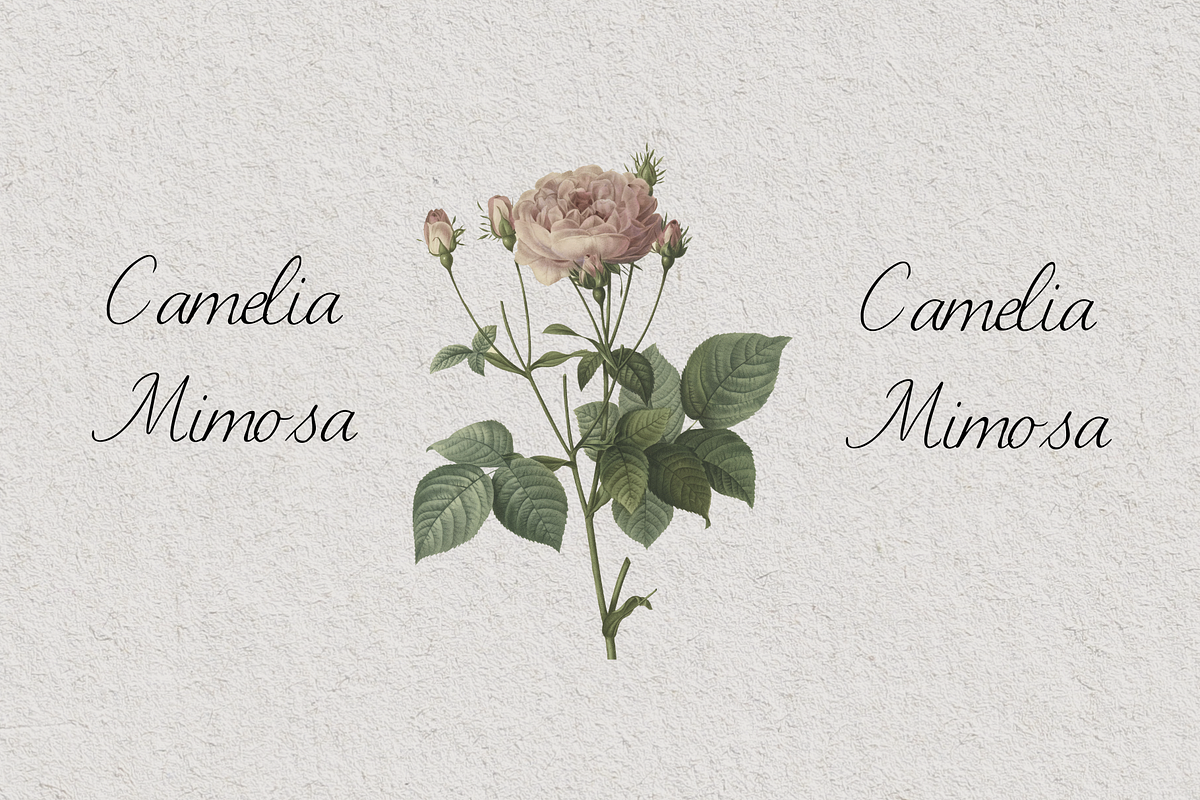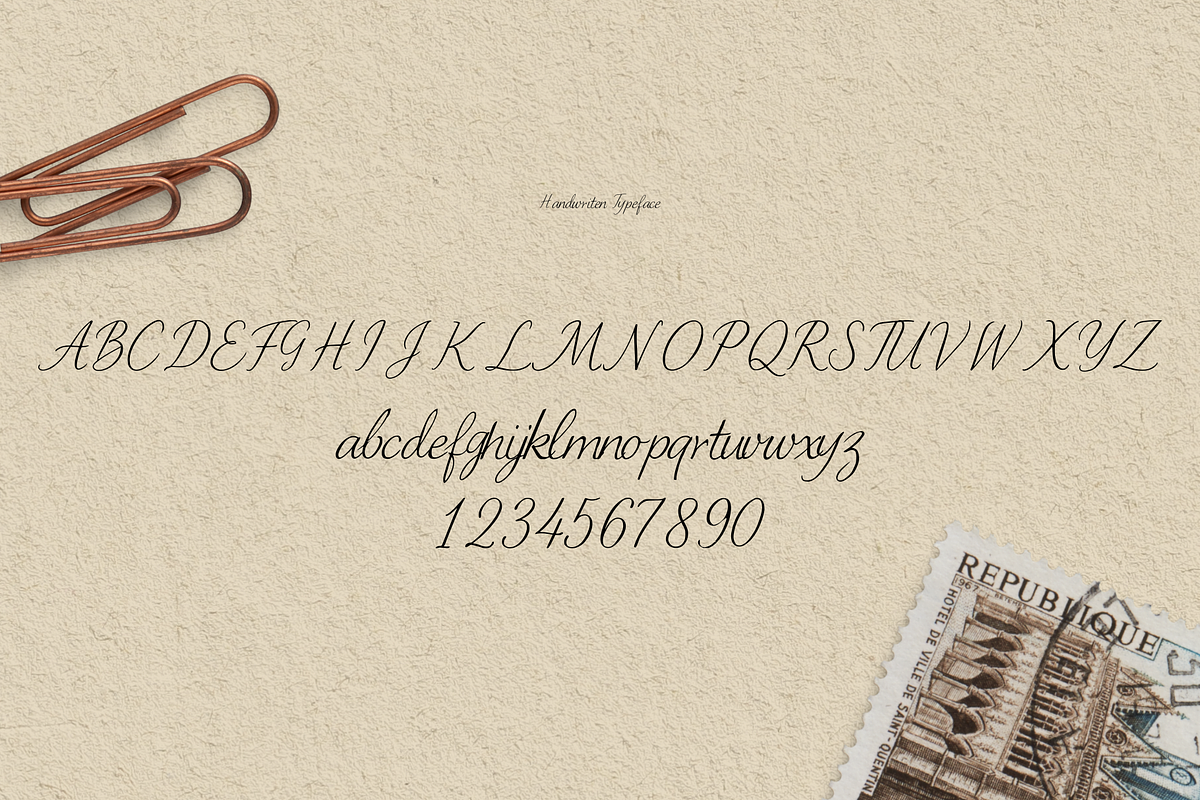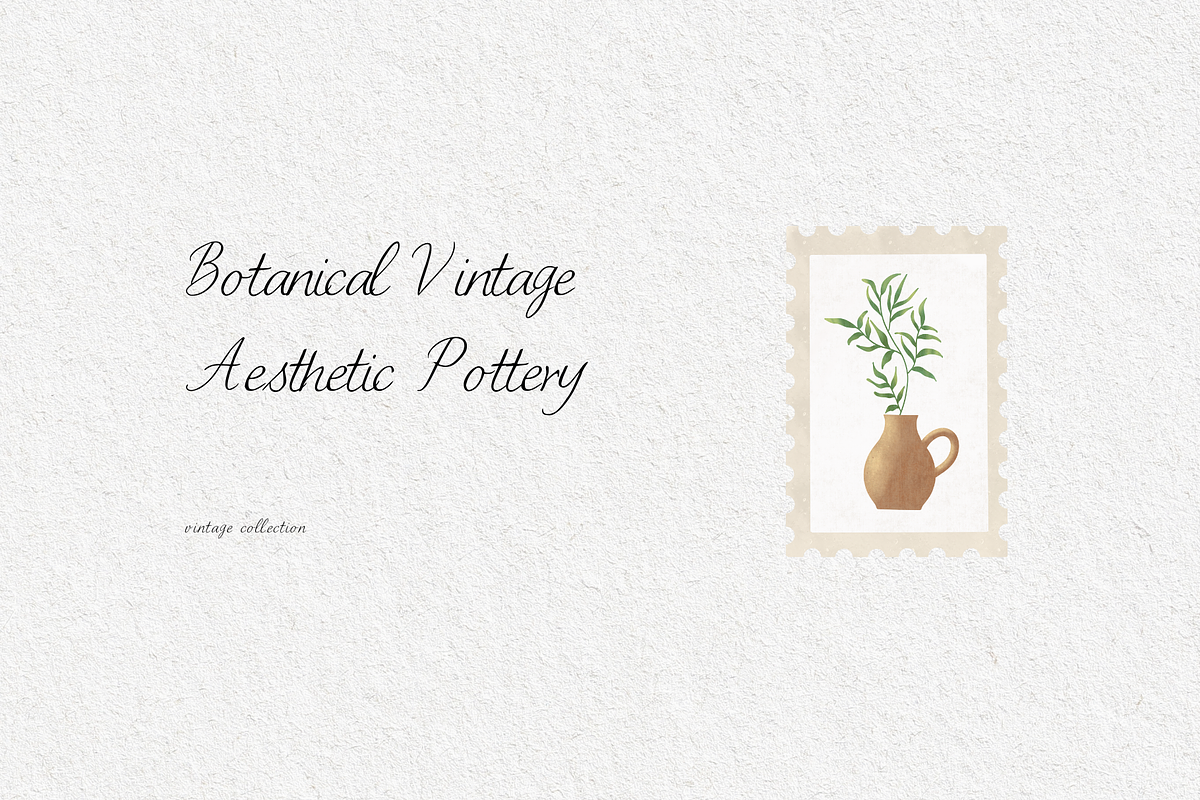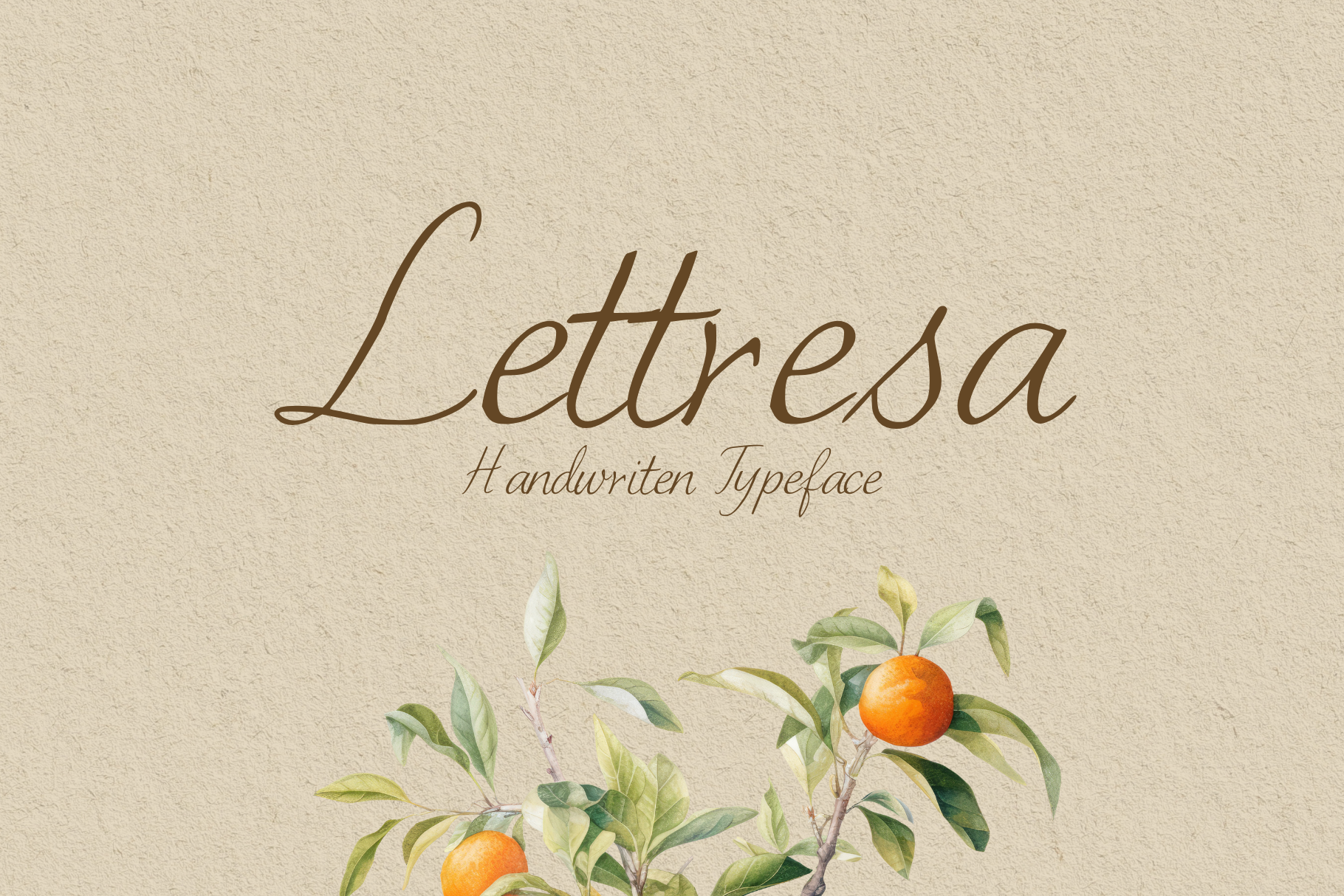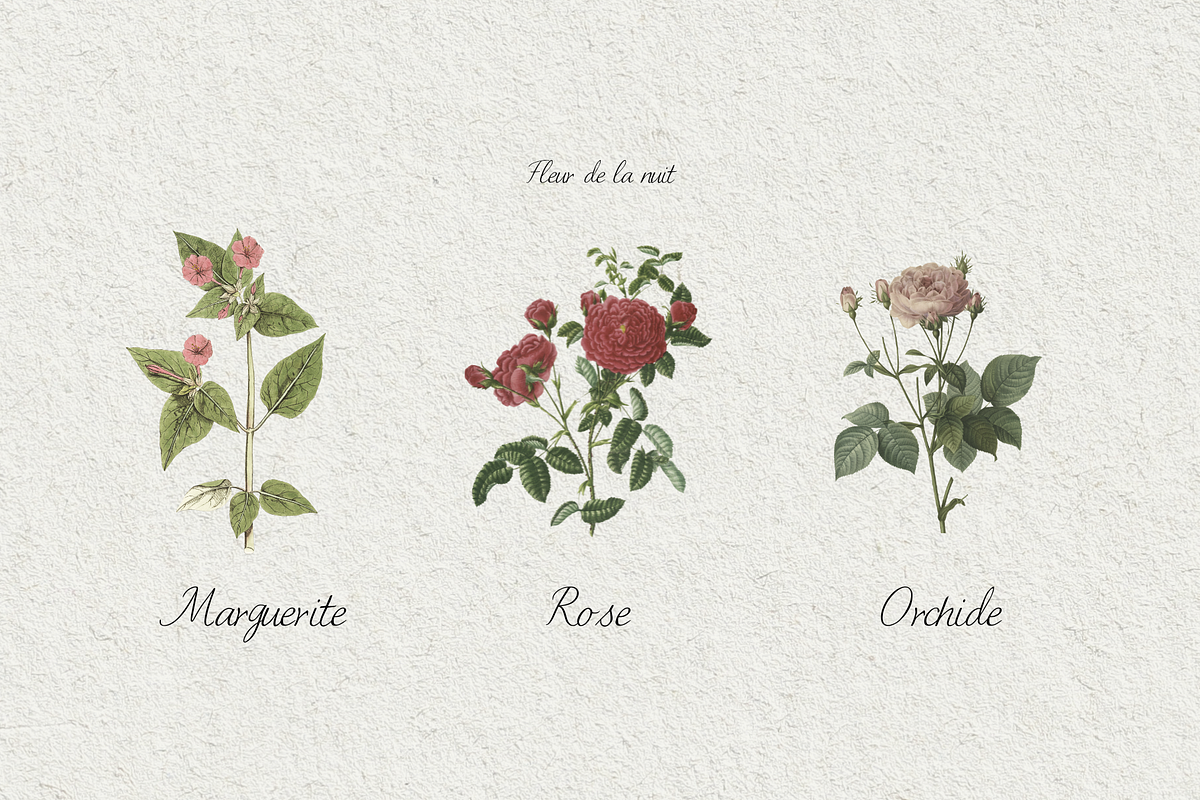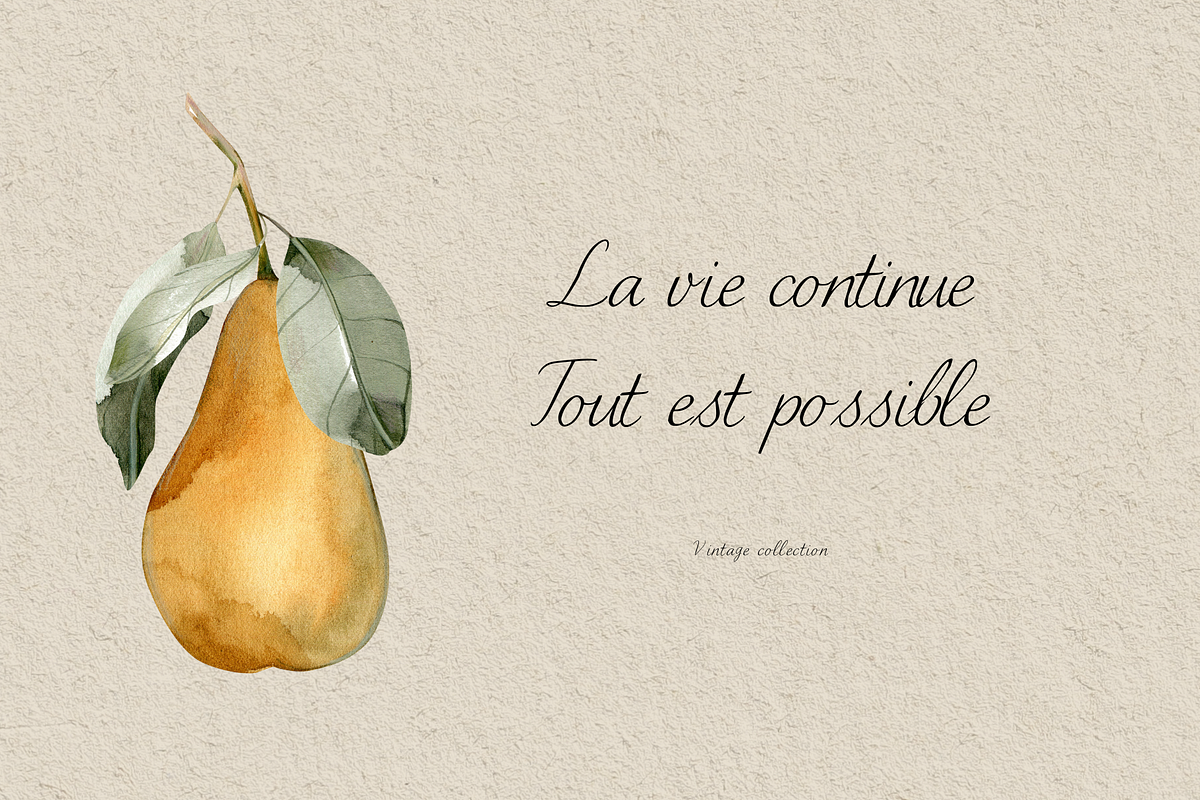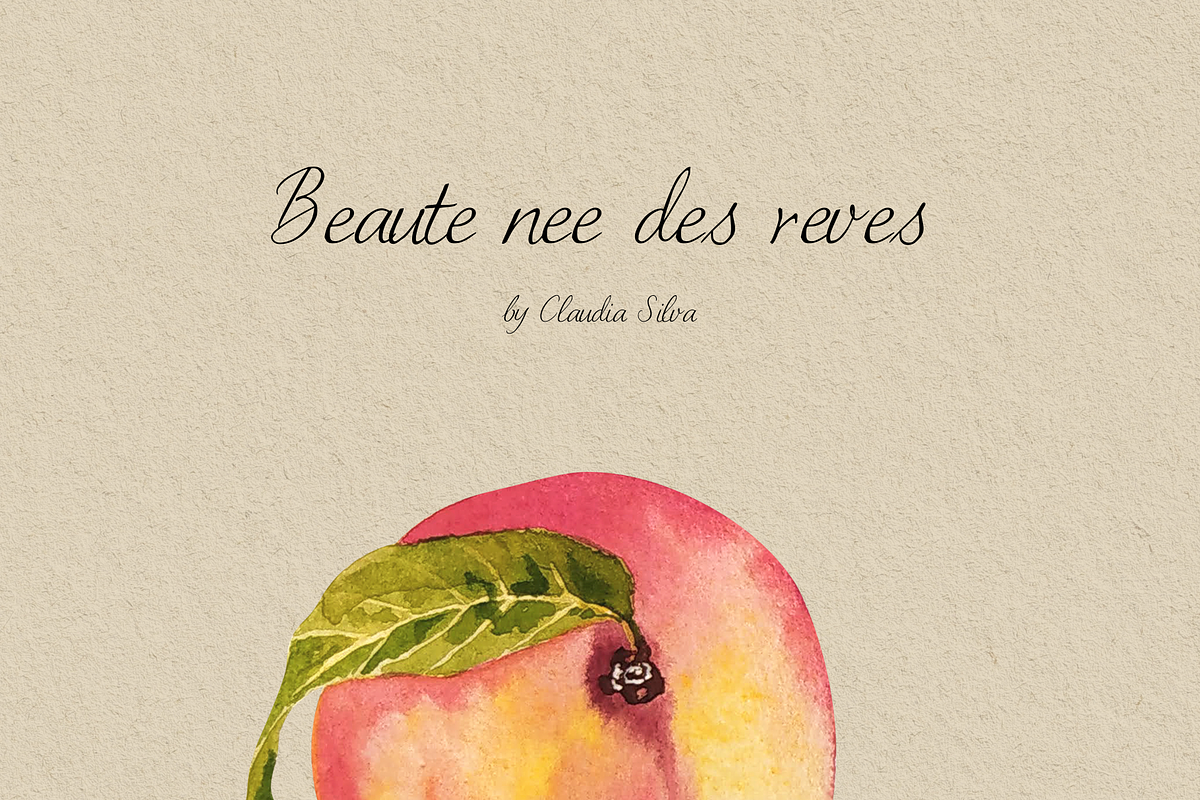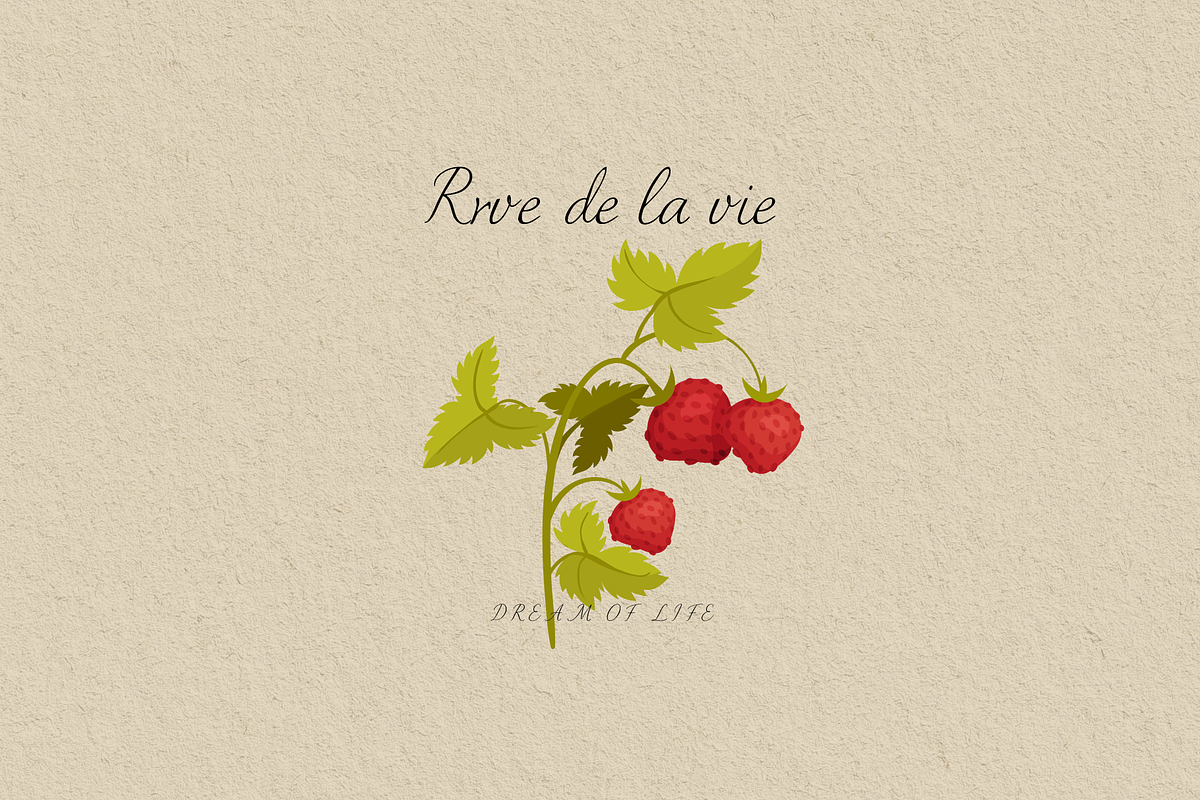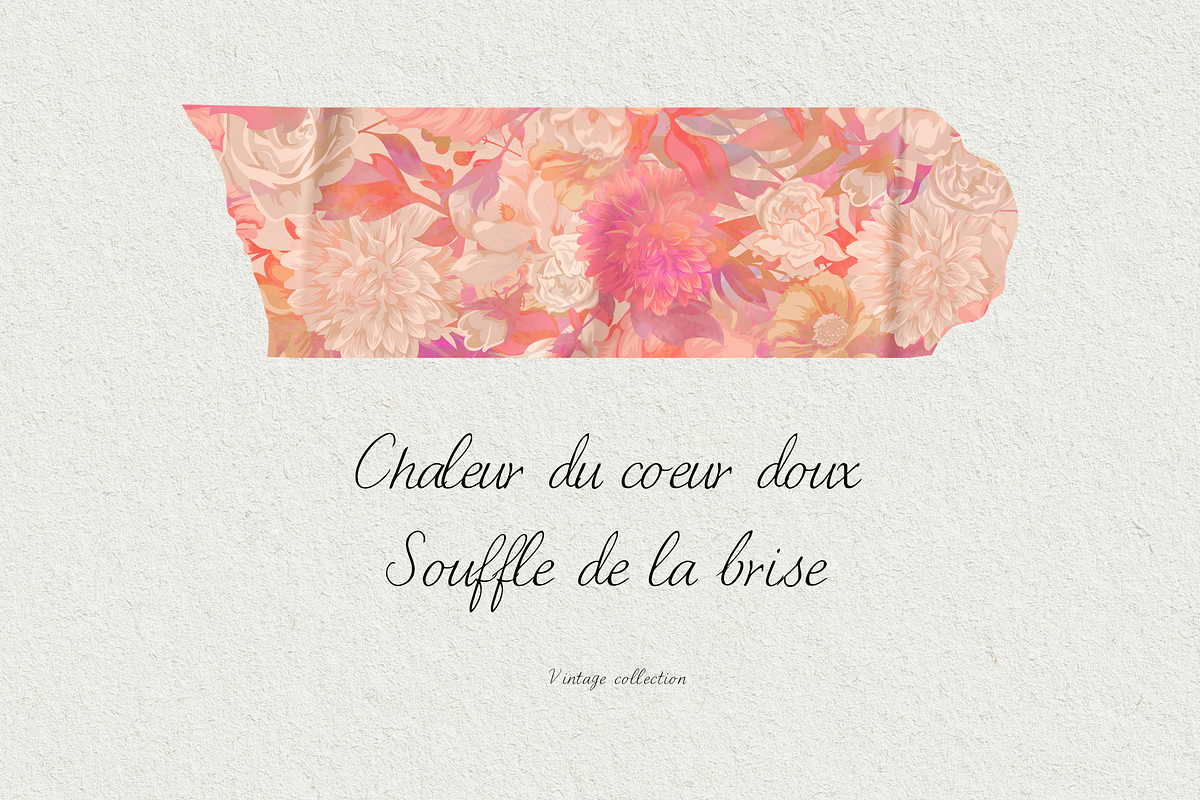
Lettresa Handwritten Typeface
Lettresa Handwritten Typeface is a charming, elegant font inspired by natural beauty and artisanal craftsmanship. Perfect for wedding invitations, greeting cards, and organic branding, its flowing letterforms exude warmth and personality. This versatile typeface shines in print media, logos, and decorative designs, blending rustic charm with modern appeal. Crafted for designers seeking a personal touch, Lettresa enhances visual storytelling with its delicate strokes and adaptability across creative projects. Ideal for adding a handmade feel to any design application.